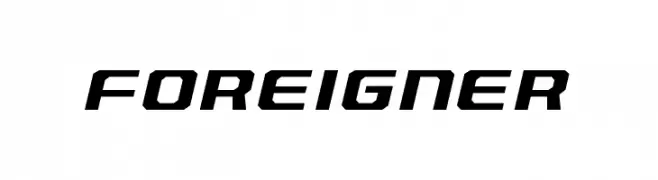
A bold, italicized font with a futuristic and angular design.
A futuristic, angular font with a dynamic, italicized style.
A futuristic, bold, and italicized font with sharp angles and a dynamic style.
A bold, angular font with a futuristic and dynamic style.